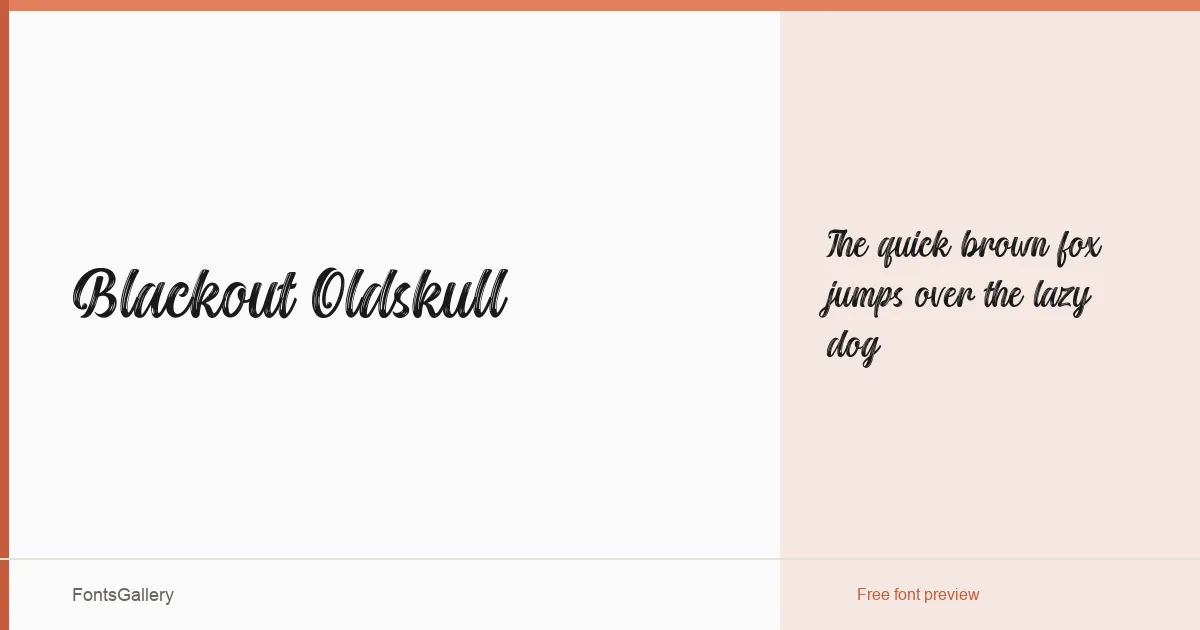
About Blackout Oldskull Font
Blackout Oldskull is a bold script typeface crafted by Aveni Yuanita of Aveni Letter Type. Rooted in a vintage aesthetic, it carries the kind of raw, timeless character that commands attention at first glance. Its name alone hints at the gritty, old-school energy it brings to any creative project.
As a script typeface, Blackout Oldskull features expressive, hand-drawn letterforms that feel both classic and rustic in nature. The bold weight of the characters gives each letter a strong presence, while the vintage styling lends an authentic, worn charm that evokes heritage and craftsmanship. The overall aesthetic strikes a confident balance between classic elegance and rugged, old-school appeal.
Blackout Oldskull is an excellent choice for logos, posters, branding projects, social media graphics, and t-shirt designs where a bold, vintage personality is desired. Its expressive character makes it especially effective as a display or headline typeface in creative and lifestyle-oriented contexts. It pairs well with Aresink for a cohesive vintage feel, or with Helvetica for a striking contrast between rustic script and clean, modern sans-serif.